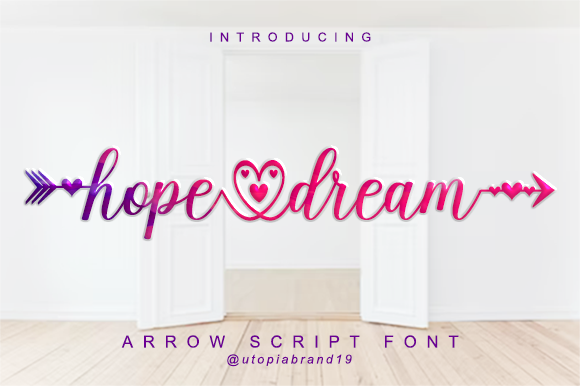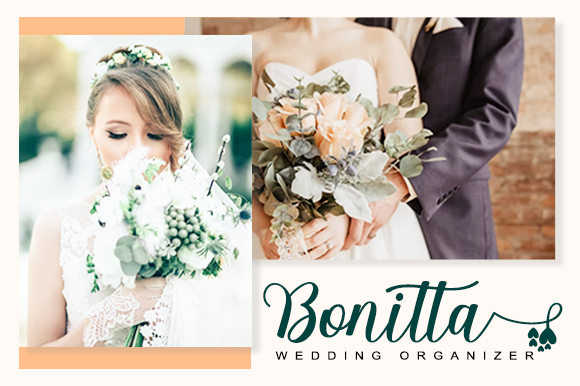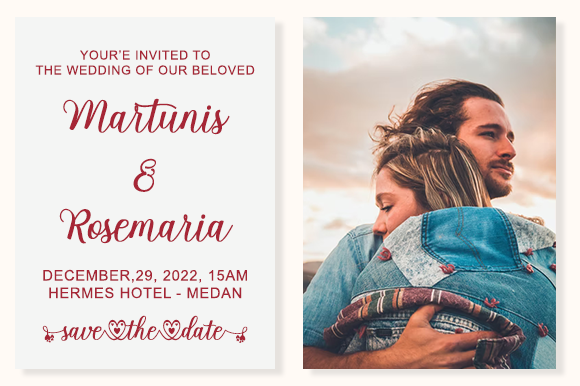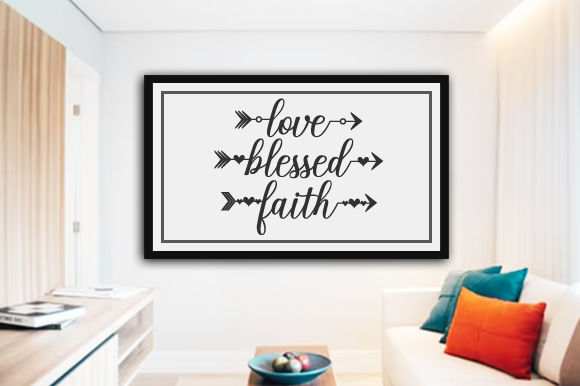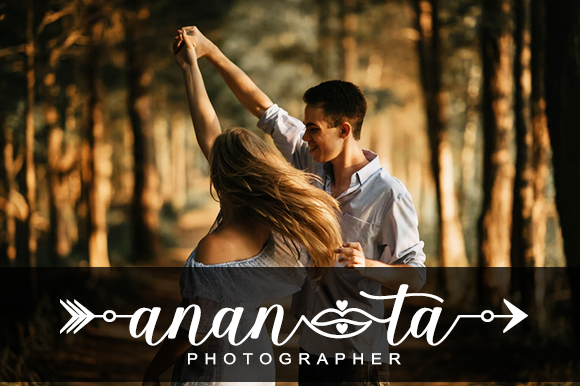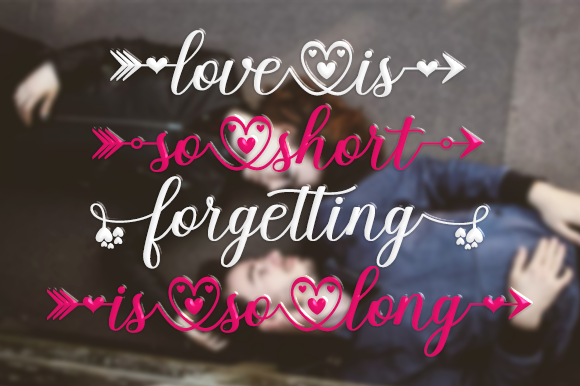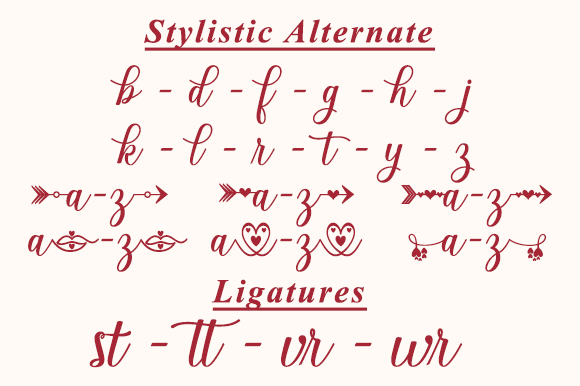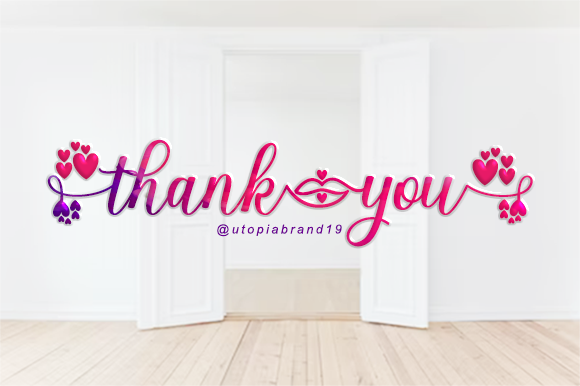
Hope Dream Script Font
About Hope Dream Script Font
Hope Dream Script feels equally charming and elegant. This font is PUA encoded which means you can access all of the glyphs and swashes with ease!